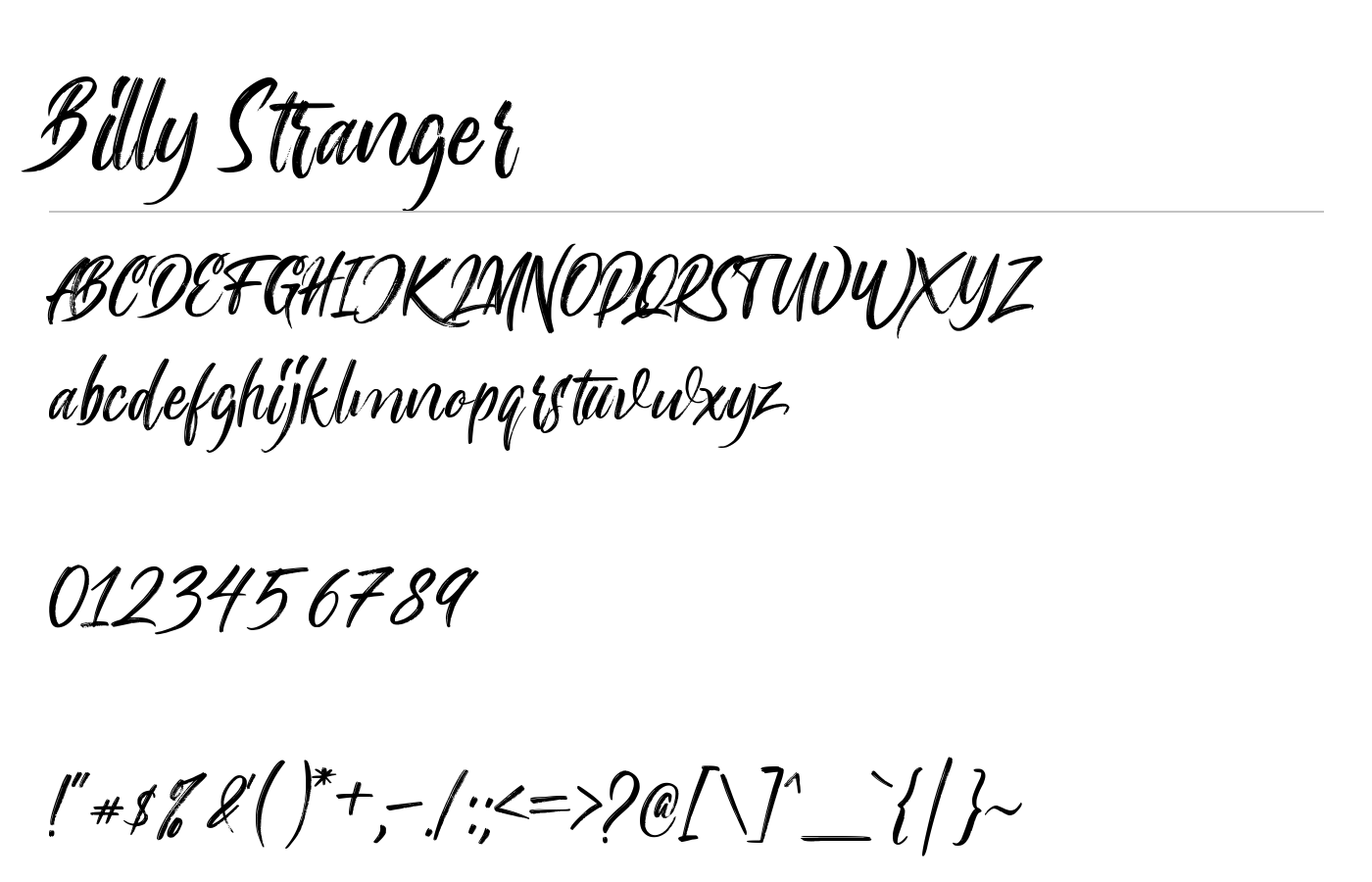
Billy Stranger is an expressive handwritten script font with a lively, brushstroke style that combines elegance and a casual, artistic feel. Its tall, slightly condensed letterforms with dynamic strokes and natural flow make it perfect for creative branding, invitations, and eye-catching headlines that need a personal, energetic touch.
Billy Stranger Font
About Billy Stranger Font